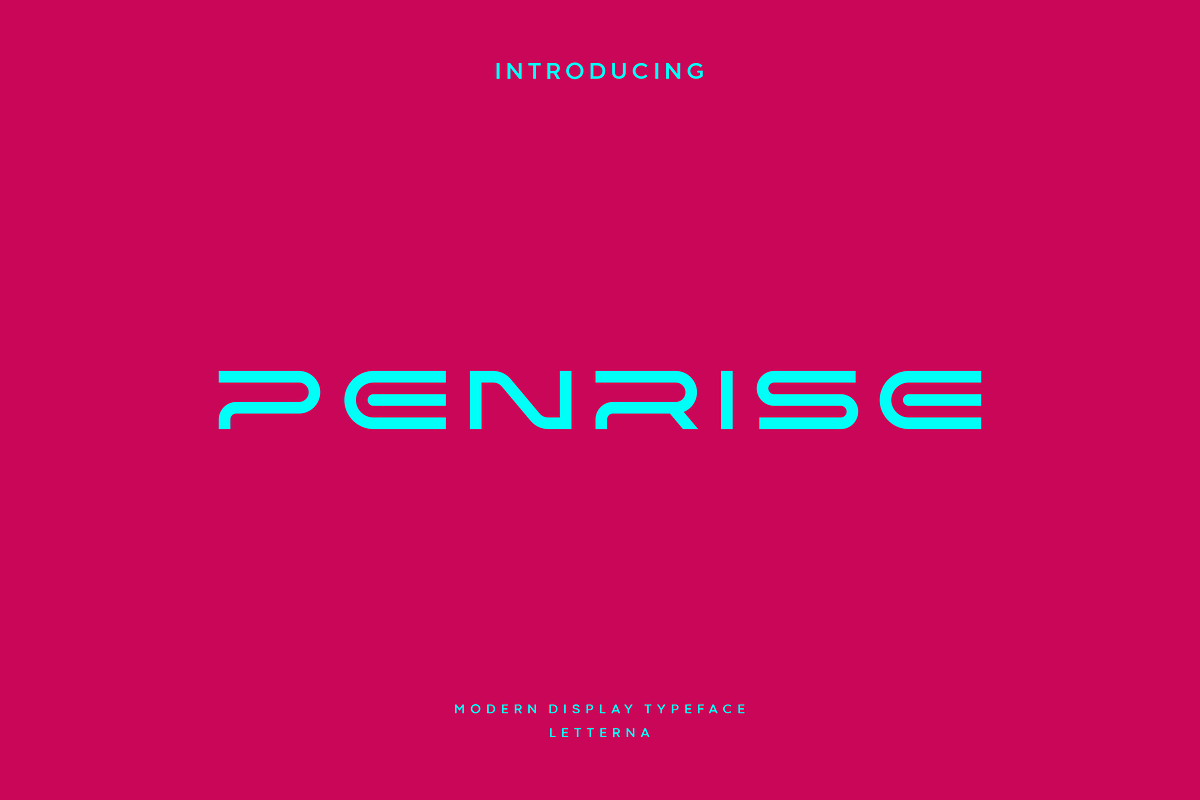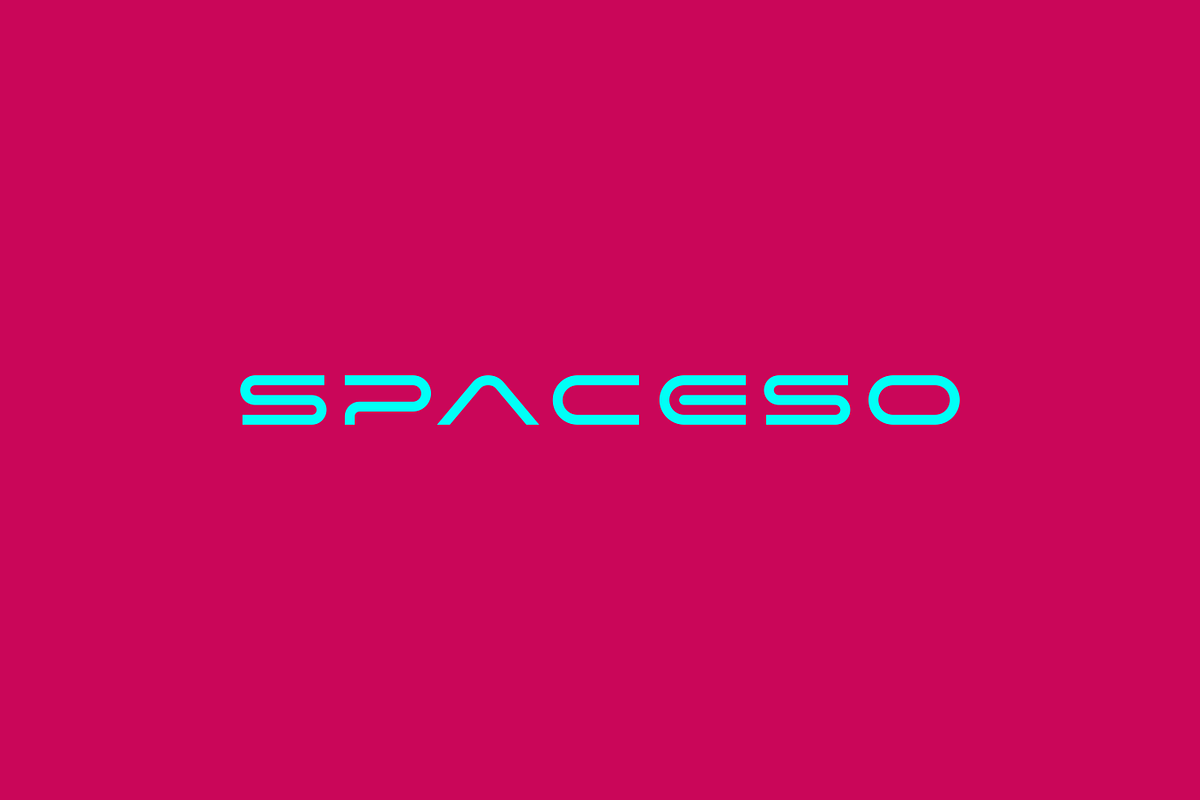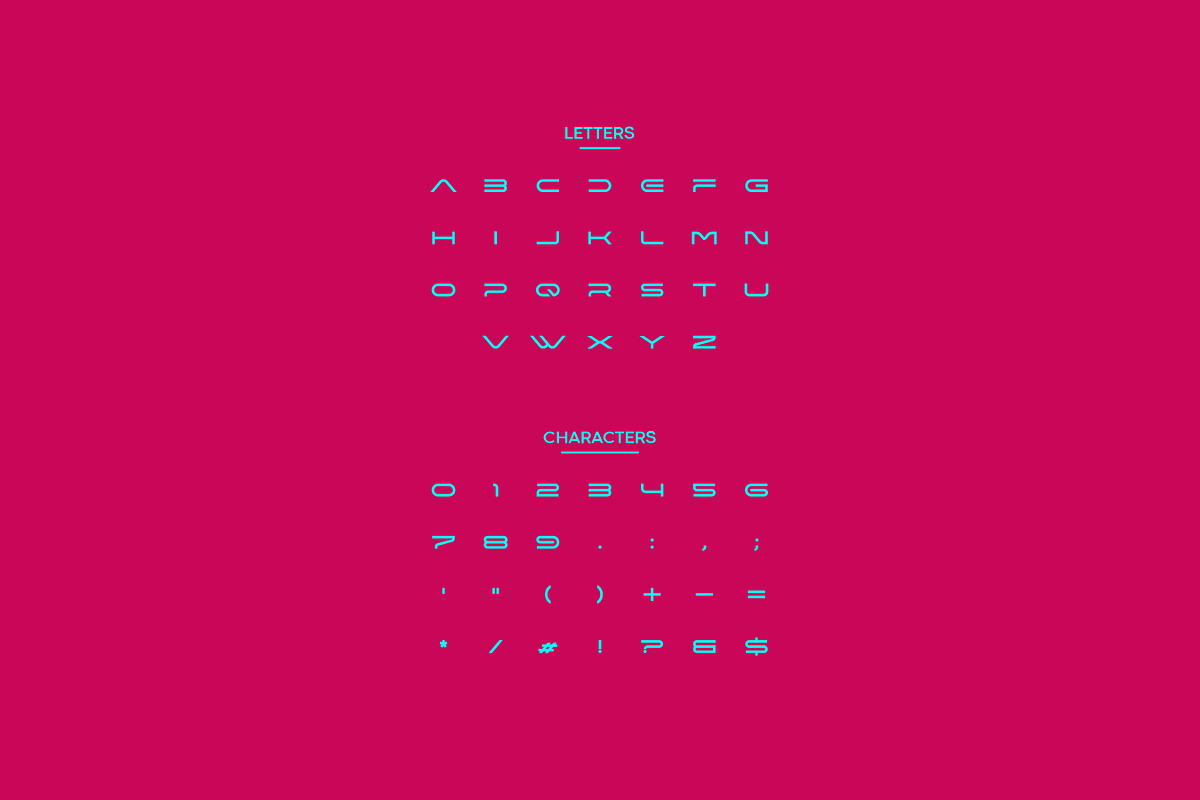
Penrise - Modern Futuristic Typeface
Penrise is a cool and futuristic display font with an all cap style, coming with a high tech theme. This font would be ideal for writing titles, web designs, logo, branding, business cards, or just about anything else that requires a unique and modern touch. Penrise has a thin and light shape that makes it look more dynamic and flexible, rounded corners make it look less stiff.